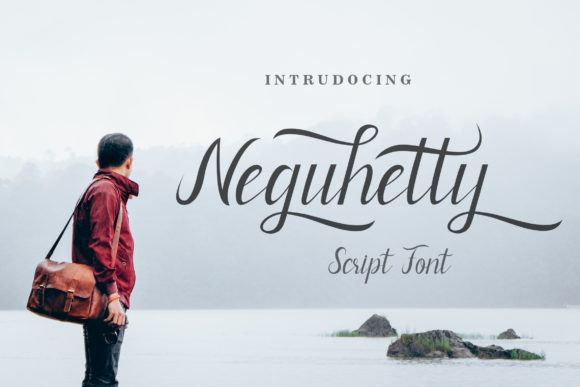
**Indulge in the Enchanting Realm of Neguhetty: A Script Font for Unforgettable Impressions**
Step into a world of elegance and sophistication with Neguhetty, a captivating script font that will leave an indelible mark on your designs. Its exquisite curves and graceful lines evoke a sense of timeless beauty, perfect for crafting designs that exude charm and allure.
**Captivate Your Audience with Unparalleled Finesse**
Neguhetty's meticulously crafted characters dance across the page with an ethereal grace, creating a visual symphony that will mesmerize your audience. Each letter is a masterpiece in its own right, boasting an intricate balance of delicate flourishes and bold strokes. Whether you're designing invitations, branding materials, or social media posts, Neguhetty will elevate your creations to new heights of sophistication.
**Unleash Your Creative Spirit with Endless Possibilities**
The versatility of Neguhetty knows no bounds. Its timeless appeal makes it an ideal choice for a wide range of design projects, from classic wedding invitations to modern fashion magazines. Experiment with different sizes, colors, and textures to discover endless creative possibilities that will ignite your imagination.
**Craft Timeless Designs that Transcend Trends**
With Neguhetty as your design companion, you can create timeless designs that will endure the test of time. Its classic beauty transcends fleeting trends, ensuring that your creations will continue to captivate for years to come. Embrace the timeless elegance of Neguhetty and leave a lasting impression on your audience.
**Experience the Magic of Neguhetty Today**